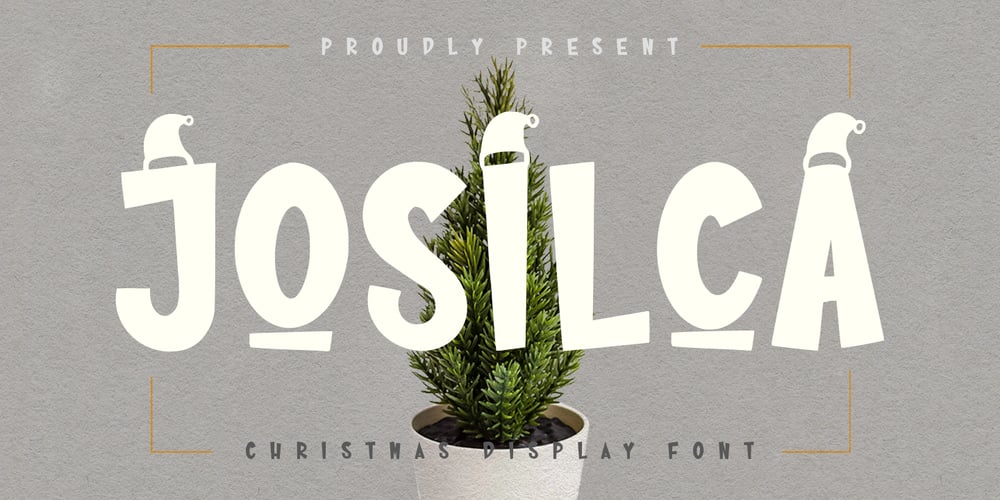
MC Josilca Font Family was designed by Gilang Maulana and published by Maulana Creative. MC Josilca contains 1 styles and family package options. Josilca is a modern christmas seasonal font. With bold stroke, fun character with a bit of alternate. To give you an extra creative work. Josilca font support multilingual language. This font is good for logo design, Social media, Movie Titles, Books Titles, a short text even a long text letter and good for your secondary text font with sans or serif. Make a stunning work with Josilca font.Cheers,Maulana Creative